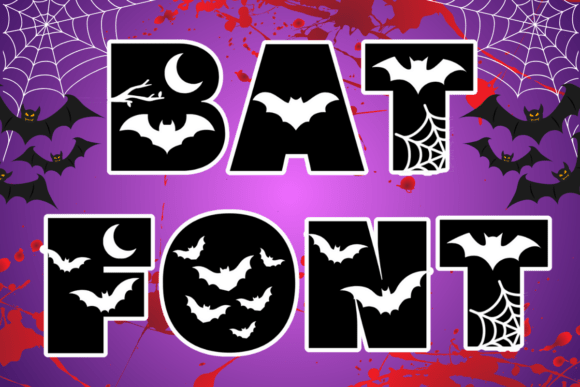
Bat Font: The Ultimate Choice for Playful and Authentic Designs
Are you looking for a font that can add a touch of playfulness and authenticity to your designs? Look no further than the Bat Font! This cute and quirky decorative font is perfect for any children activity or school project. With its chunky lettered design, Bat Font is sure to make your designs come alive.
What is Bat Font?
Bat Font is a decorative font that features chunky, playful letters. It’s designed to be eye-catching and fun, making it perfect for use in children’s activities, school projects, and other designs where a playful touch is desired.
Key Features of Bat Font
- Playful Design: Bat Font features a playful, chunky design that’s perfect for adding a touch of fun to your designs.
- Authentic Look: The font’s authentic look makes it perfect for use in a variety of designs, from children’s activities to school projects.
- Easy to Read: Despite its playful design, Bat Font is easy to read, making it perfect for use in designs where text needs to be clear and legible.
Ideas for Using Bat Font
Bat Font is a versatile font that can be used in a variety of designs. Here are a few ideas to get you started:
- Children’s Activities: Bat Font is perfect for use in children’s activities, such as coloring books, activity sheets, and educational materials.
- School Projects: The font’s playful design makes it perfect for use in school projects, such as posters, presentations, and reports.
- Party Invitations: Bat Font is also perfect for use in party invitations, such as birthday party invitations, Halloween party invitations, and other celebrations.
- Social Media Graphics: The font’s playful design makes it perfect for use in social media graphics, such as Facebook posts, Instagram posts, and Twitter headers.
Design Tips for Using Bat Font
Here are a few design tips to keep in mind when using Bat Font:
- Use a Bold Color: Bat Font looks great in bold, bright colors. Try using a bold color to make your design stand out.
- Experiment with Textures: The font’s playful design makes it perfect for use with textures. Try experimenting with different textures to add depth and interest to your design.
- Keep it Simple: While Bat Font is a playful font, it’s still easy to read. Keep your design simple and clean to make sure your text is clear and legible.
Benefits of Using Bat Font
There are many benefits to using Bat Font in your designs. Here are a few:
- Adds a Touch of Playfulness: Bat Font adds a touch of playfulness to your designs, making them more engaging and fun.
- Perfect for Children’s Designs: The font’s playful design makes it perfect for use in children’s designs, such as children’s activities and school projects.
- Easy to Read: Despite its playful design, Bat Font is easy to read, making it perfect for use in designs where text needs to be clear and legible.
In conclusion, Bat Font is a cute and quirky decorative font that’s perfect for adding a touch of playfulness and authenticity to your designs. With its chunky lettered design and easy-to-read text, Bat Font is sure to make your designs come alive. Whether you’re working on a children’s activity, school project, or other design, Bat Font is a great choice.